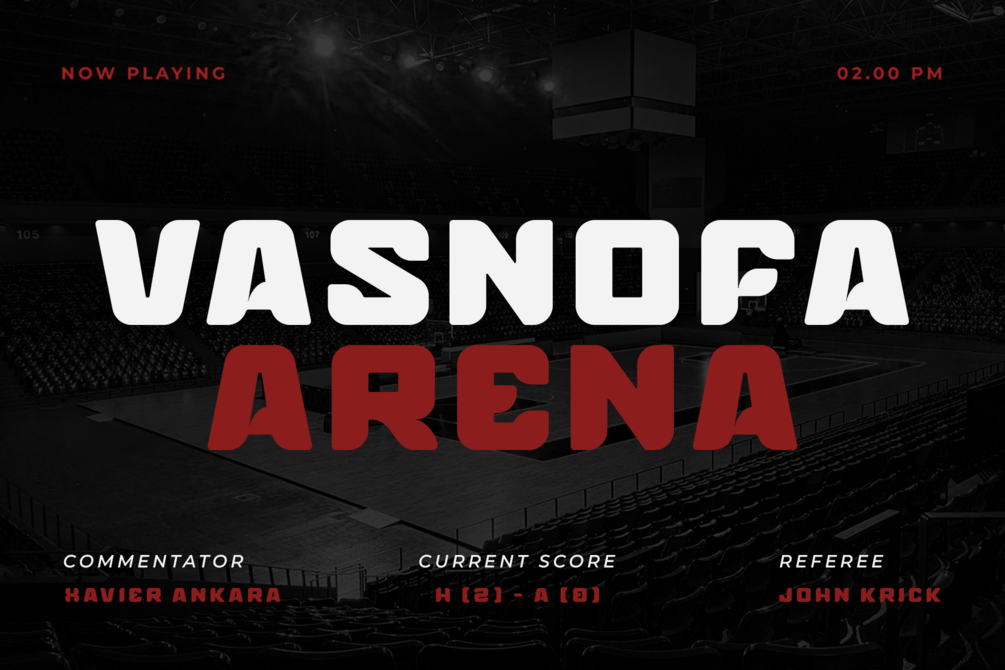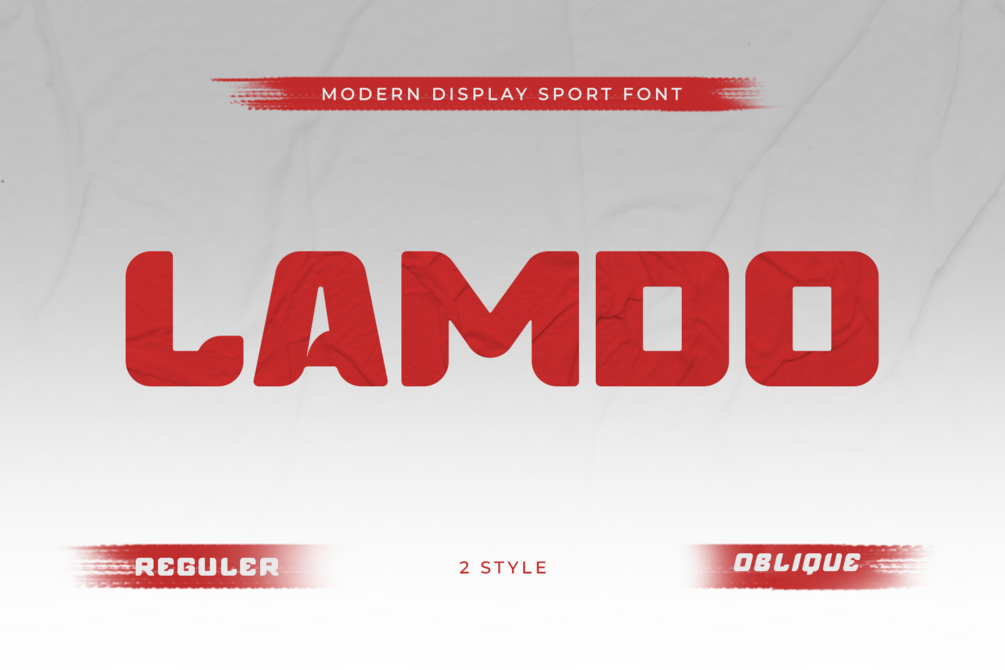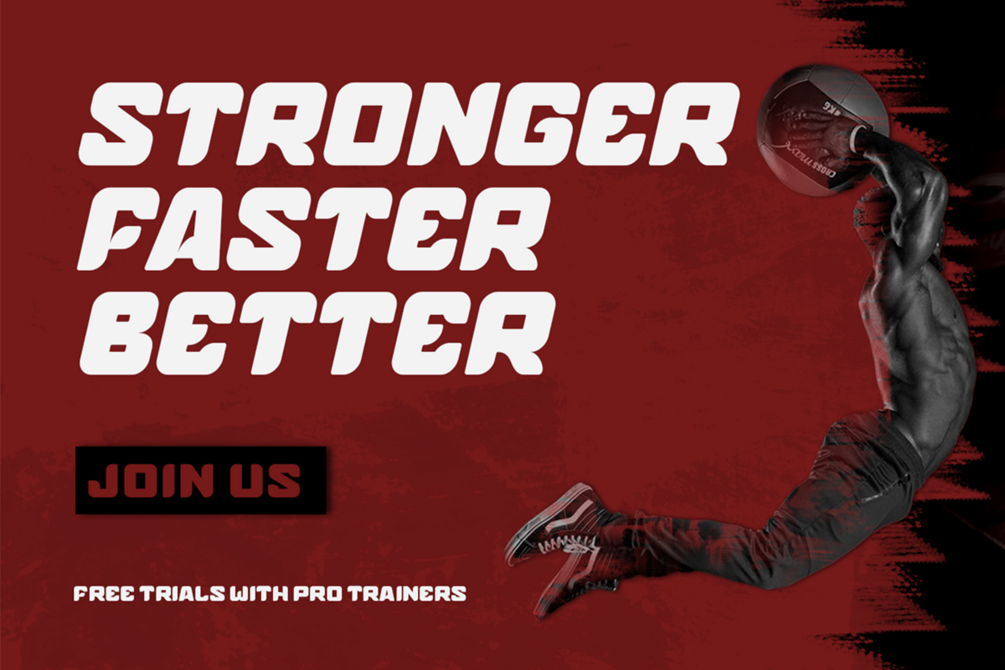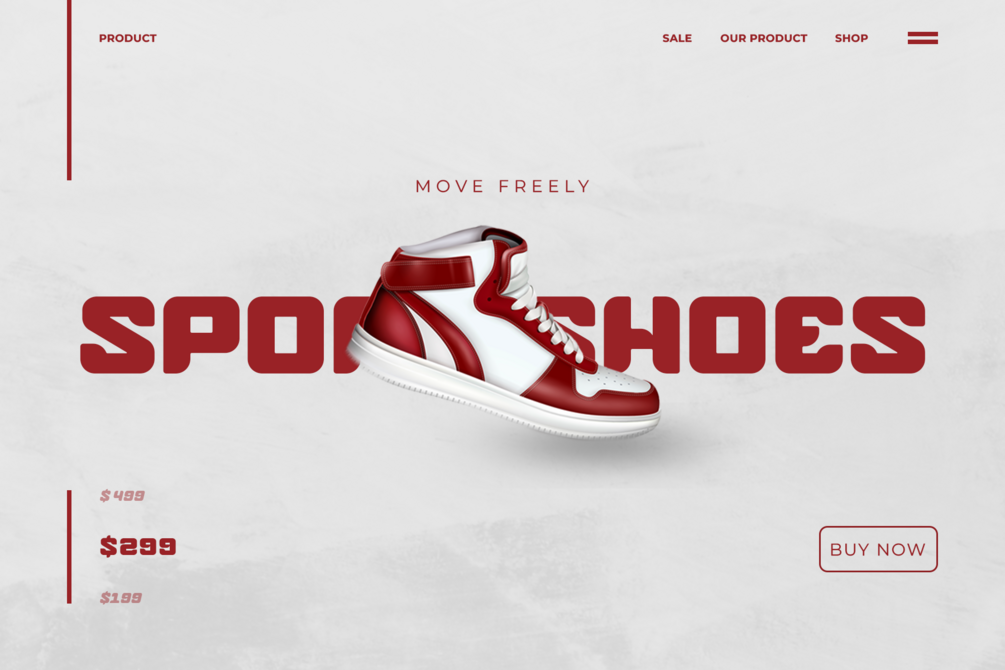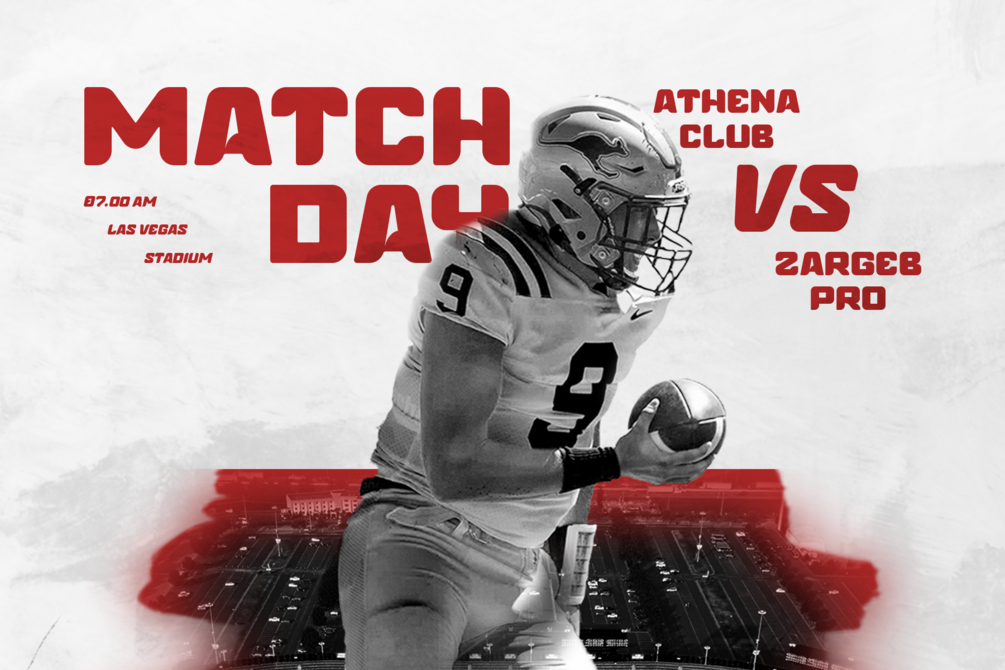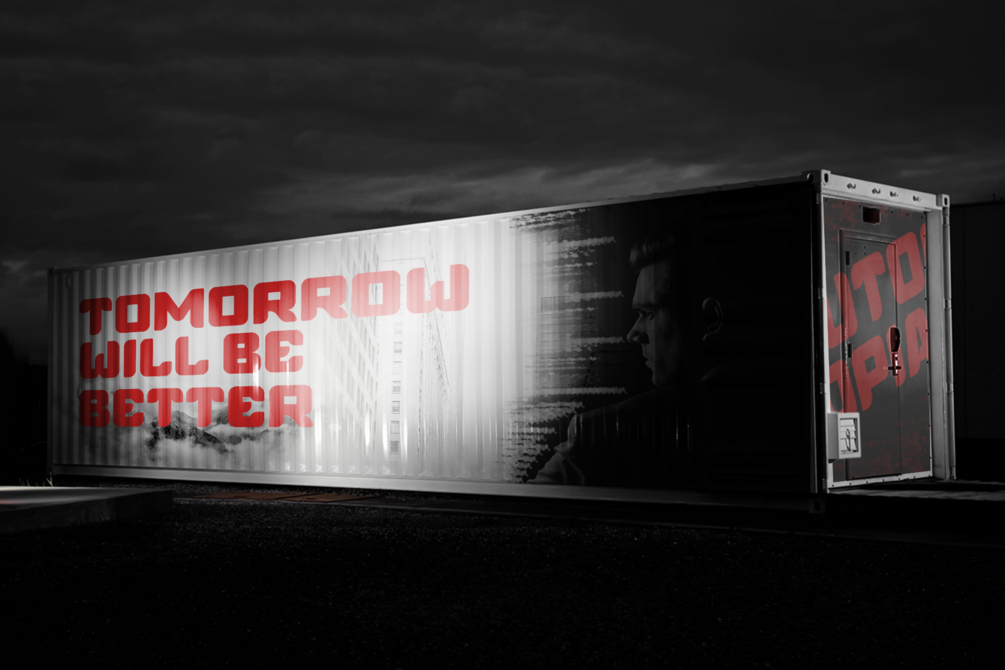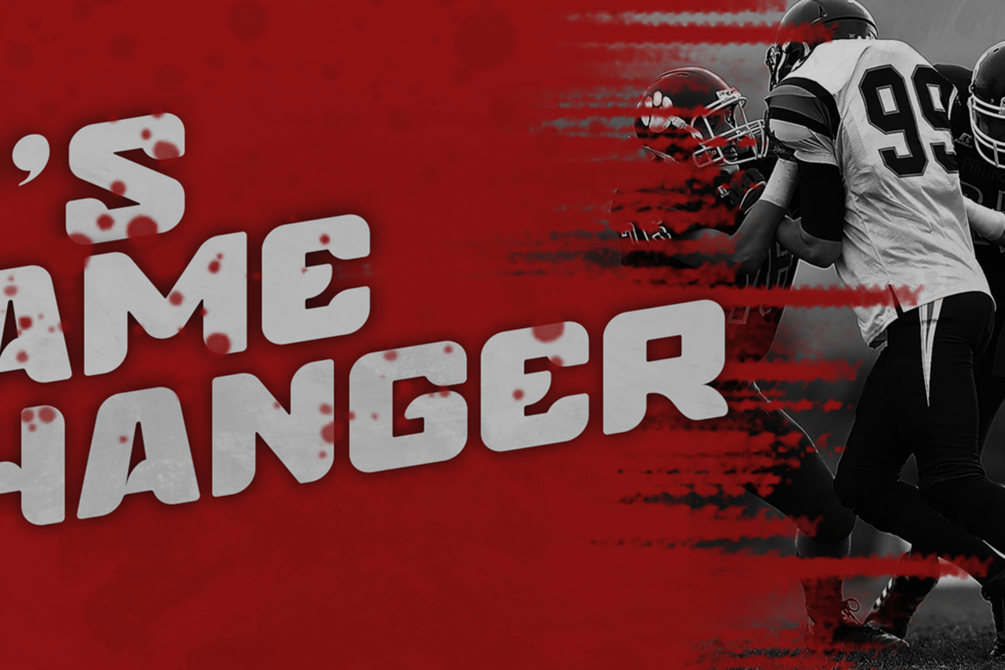
Lamdo - Display Modern Sport Font
Introducing,
Lamdo - Modern Display Sport Font, a dynamic typeface designed to elevate your headlines and capture the essence of athleticism and vigor. Crafted with precision and attention to detail, Lamdo exudes a contemporary aesthetic, perfect for making a bold statement in the world of sports. This font commands attention and delivers a powerful visual impact, making it ideal for headlines, banners, posters, and other promotional materials related to the realm of sports.